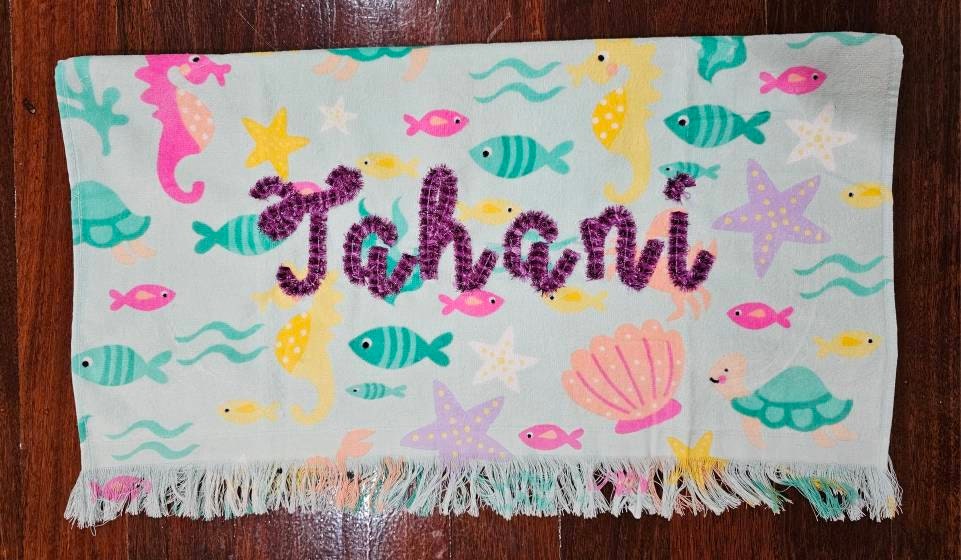
Big Fringe extra fluff! Fringed FONT alphabet letters machine embroidery designs in assorted maxi sizes kids girly pretty fluffy letters, BX included
NB! This is extra fluff fringed font.
You may fringe all letters.
Entire alphabet A-Z uppercase and lowercase, and special mark "dash" -